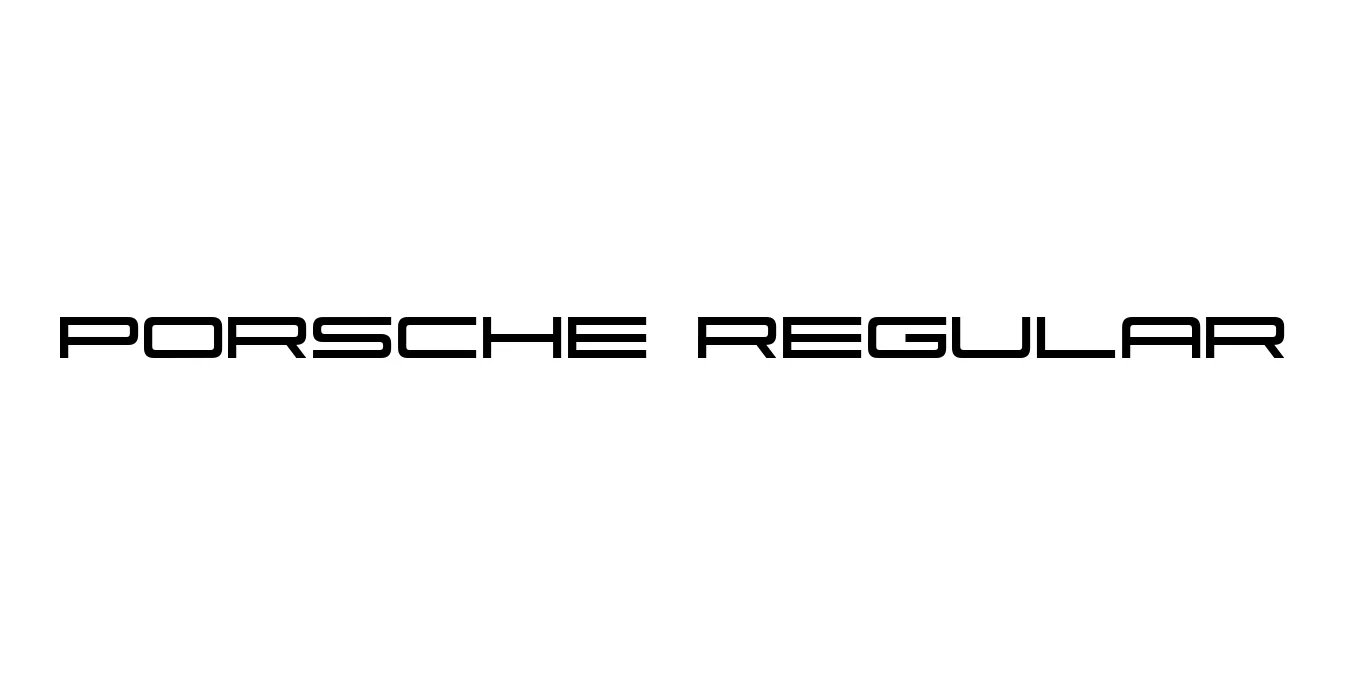
Porsche Regular
Designed by Porsche Design Group
Porsche Regular is a sophisticated typeface that embodies the spirit of speed, luxury, and engineering precision associated with the world-renowned German automobile manufacturer. Originally developed to complement the sleek lines of their iconic sports cars, the font features a wide, extended structure with clean, geometric lines. This distinct aesthetic has become synonymous with the Porsche brand identity, appearing on everything from vehicle emblems and dashboards to global marketing materials and corporate communications.
Over the decades, the typeface has evolved to maintain its contemporary edge while staying true to its functional heritage. The Regular weight offers exceptional legibility while retaining the characteristic horizontal expansion that suggests stability, power, and forward momentum. Today, it remains a top choice for designers looking to evoke a sense of high-performance luxury and industrial sophistication in their creative projects, particularly within the automotive, racing, and high-tech sectors.
Porsche Regular Best Uses
Ideal for creating high-end corporate identities and automotive-themed logos.
Perfect for headlines in premium marketing campaigns and luxury product catalogs.
Great for impactful hero sections and bold navigation menus that require a modern touch.
Highly effective for magazine layouts, posters, and technical brochures in the transport industry.